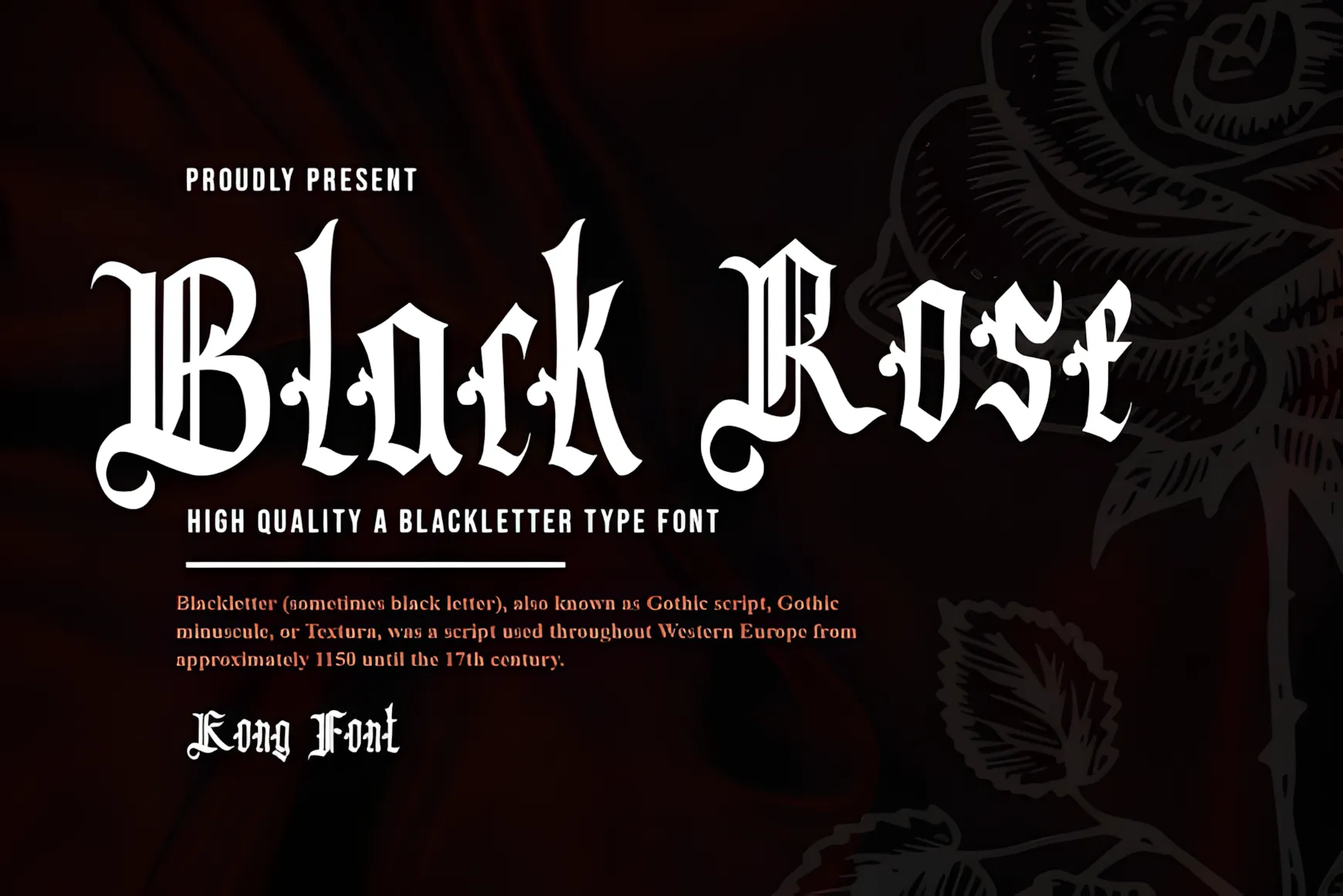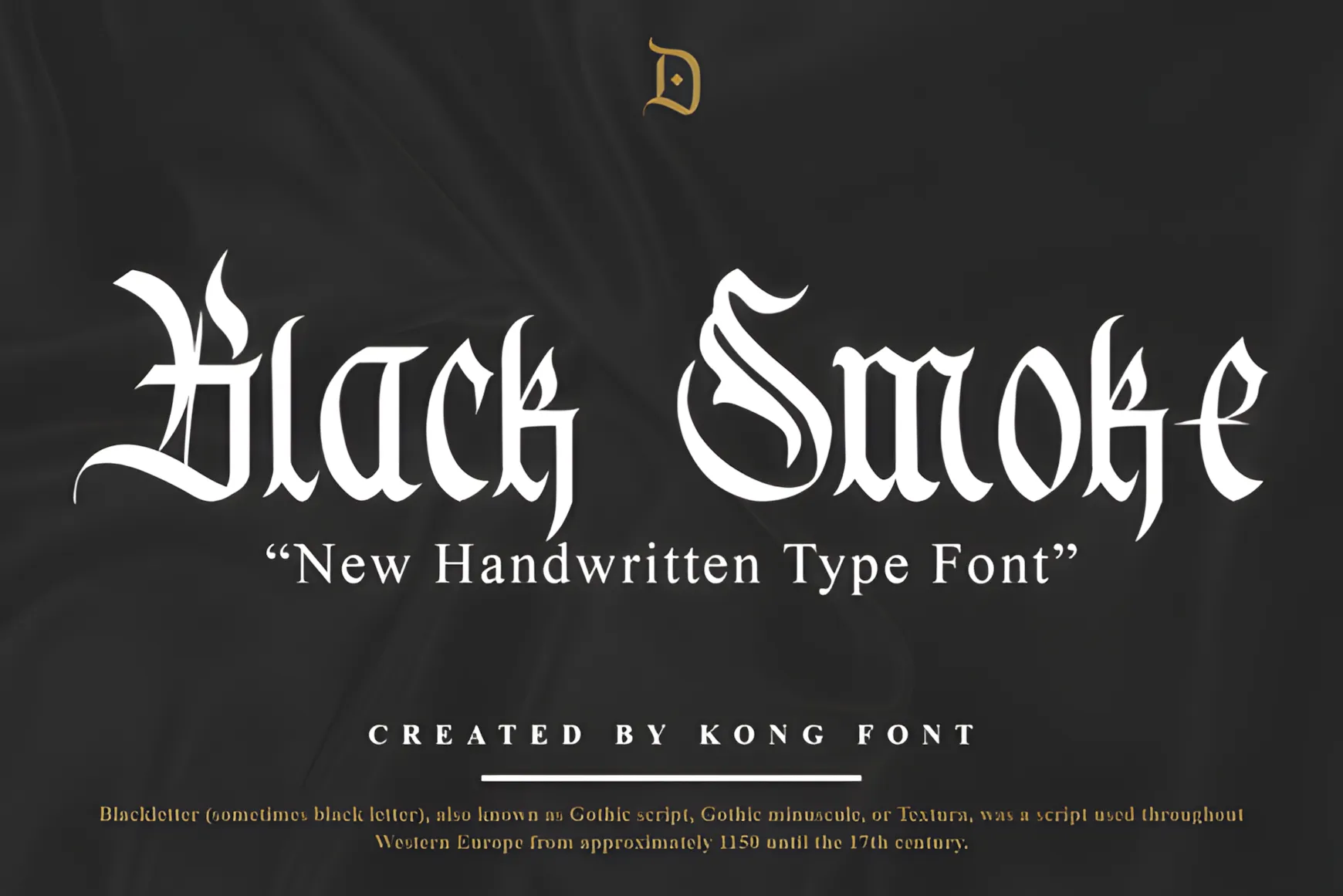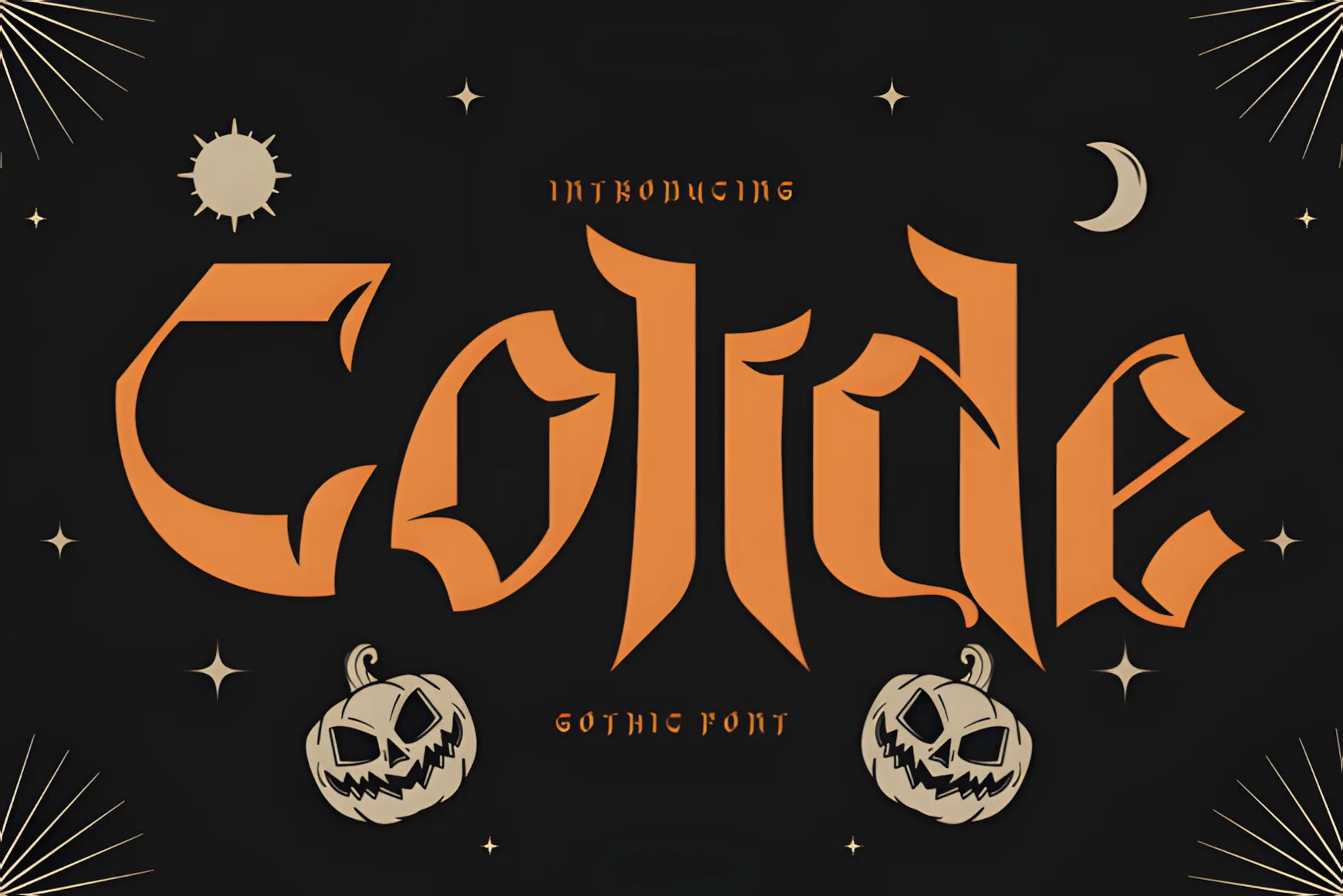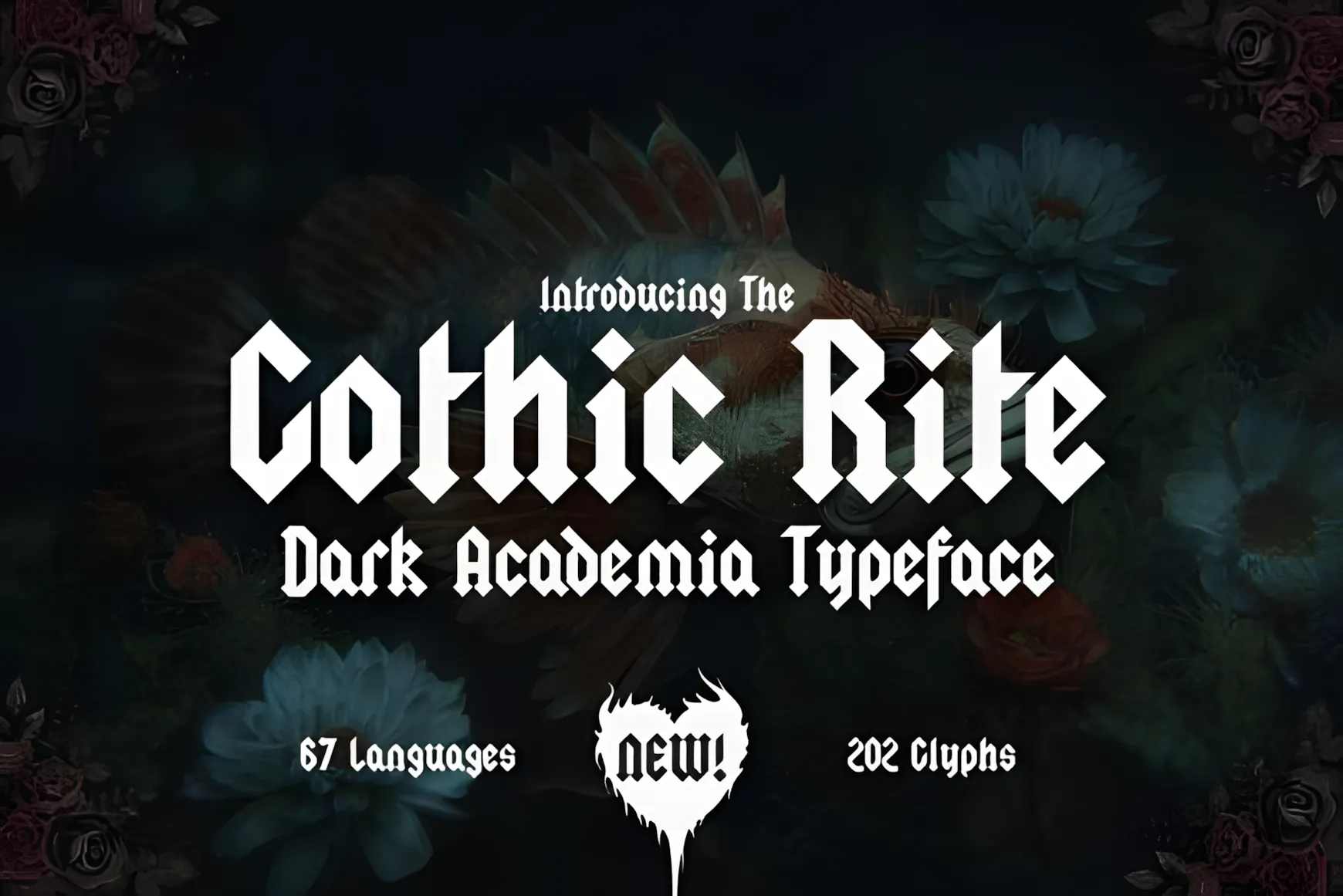
8 Best Textura Fonts for Medieval Design Projects
8 Best Textura Fonts for Medieval Design Projects Textura fonts bring the dense, woven texture of medieval manuscripts straight into modern design tools. Their vertical emphasis, broken strokes, and tight rhythm instantly